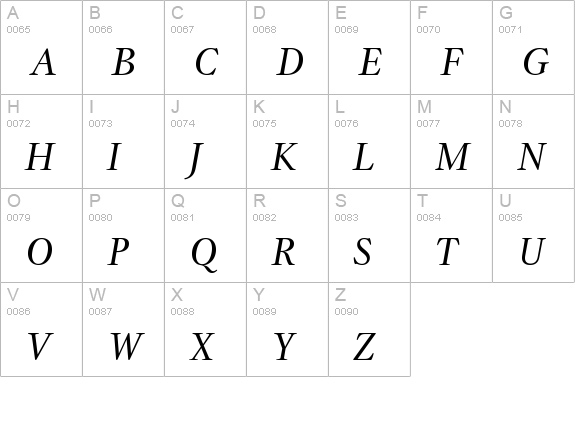
GammaEF-BookItalic is a captivating and elegant font that adds a touch of sophistication to any design project. Its sleek and slanted letterforms exude a sense of modernity and style, making it perfect for both professional and creative applications. With its smooth curves and graceful strokes, GammaEF-BookItalic captures attention and effortlessly guides the reader's eye across the page. Its italicized form adds a subtle emphasis to the text, giving it a sense of importance and distinction. Whether used in headlines, body text, or captions, this font lends a sense of authority and elegance to any piece of writing. One of the most remarkable aspects of GammaEF-BookItalic is that it is available for free. Yes, you read that right! This stunning font can be freely downloaded at FontsMarket.com, allowing designers, writers, and enthusiasts to access its beauty without any cost. This font is not only visually appealing but also highly legible. Each letter is meticulously crafted, ensuring optimal readability even at small sizes. The generous spacing between characters enhances clarity and prevents any confusion that can arise from overcrowding. GammaEF-BookItalic is a versatile font that can be used in a wide range of design projects. From printed materials such as brochures, magazines, and posters to digital platforms like websites and social media graphics, this font adapts effortlessly to any medium. Its timeless elegance and contemporary appeal make it a go-to choice for designers seeking a font that stands out from the crowd. So why wait? Experience the beauty and versatility of GammaEF-BookItalic today. Download it for free at FontsMarket.com and witness how this font elevates your design projects to new heights. With its stunning aesthetics and effortless legibility, GammaEF-BookItalic is sure to become a staple in your design toolbox.